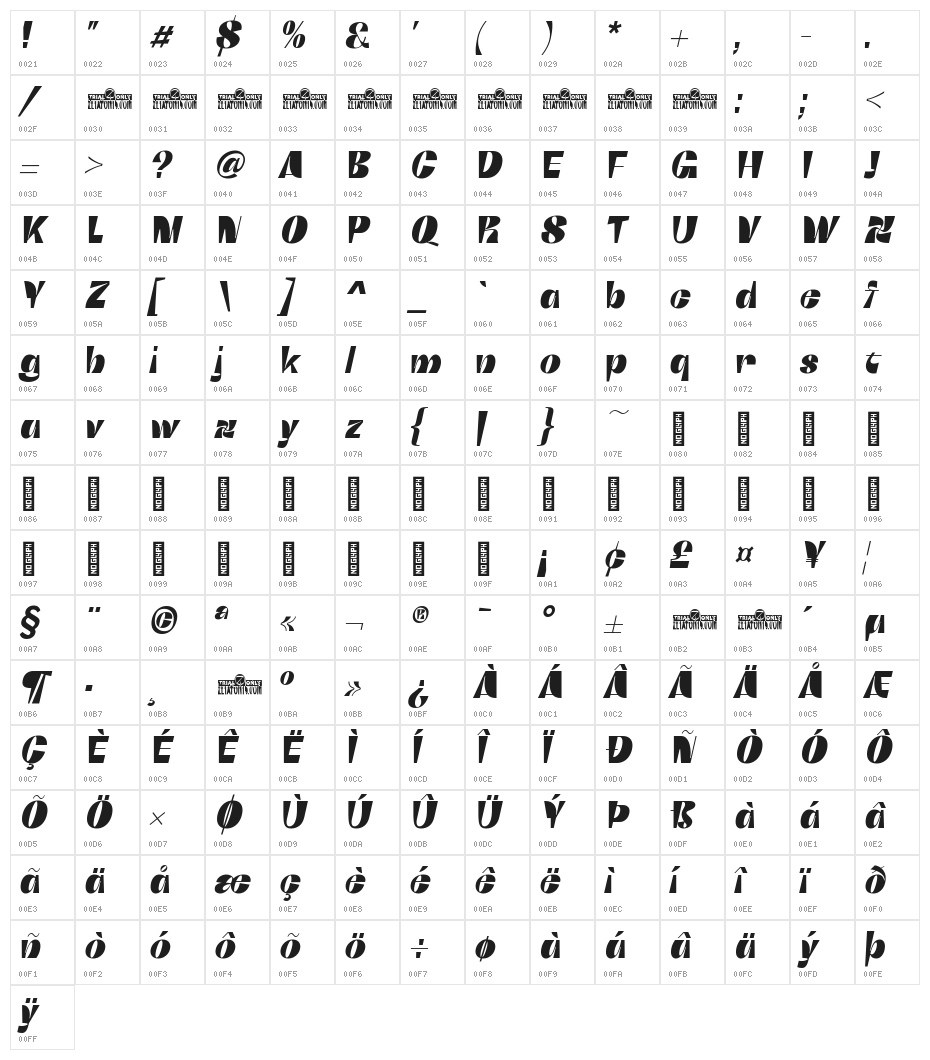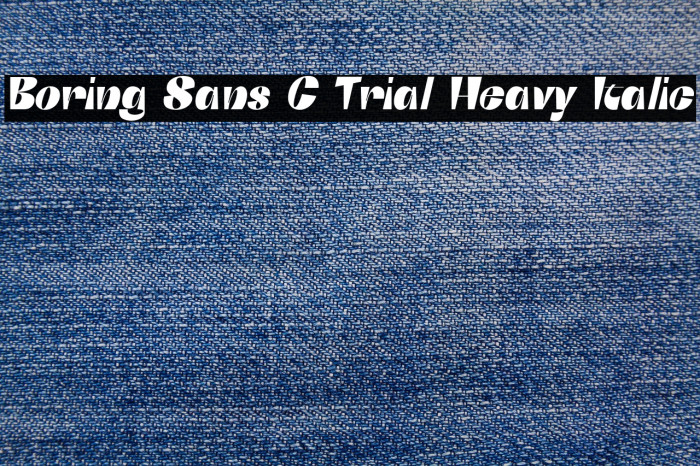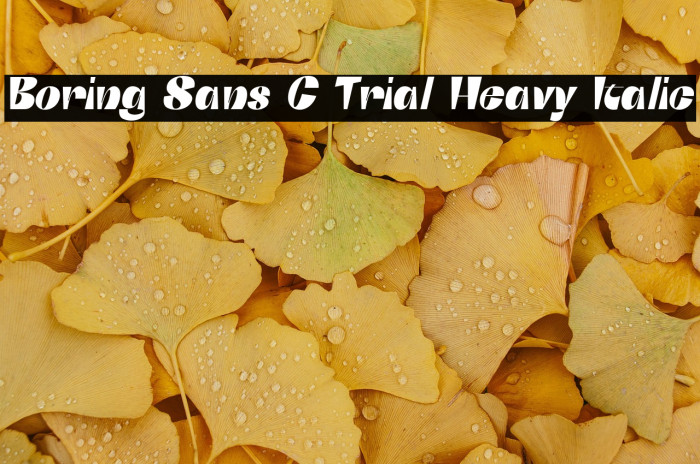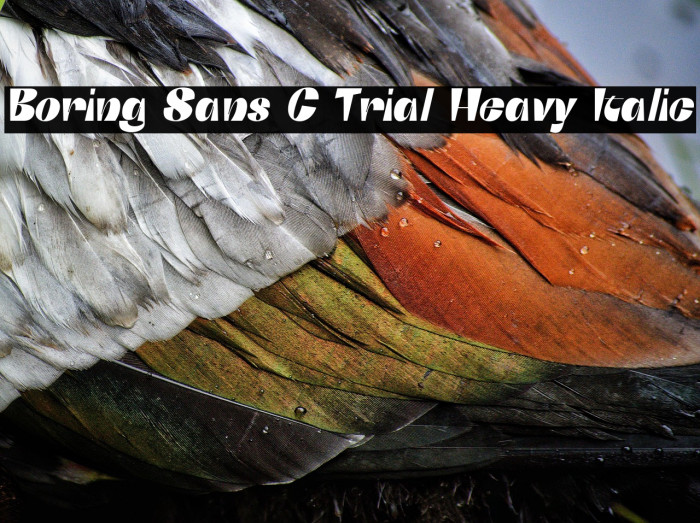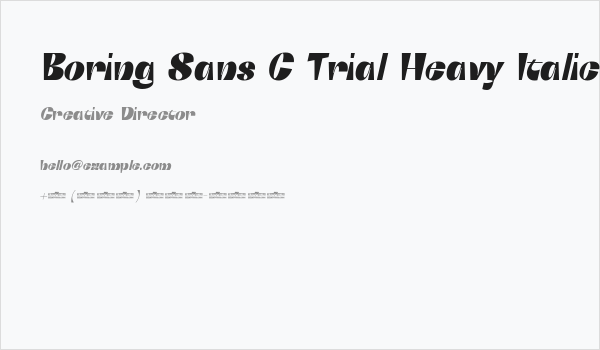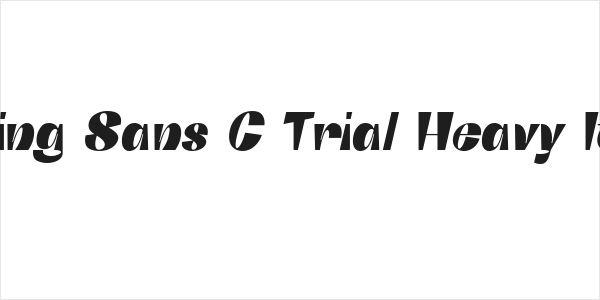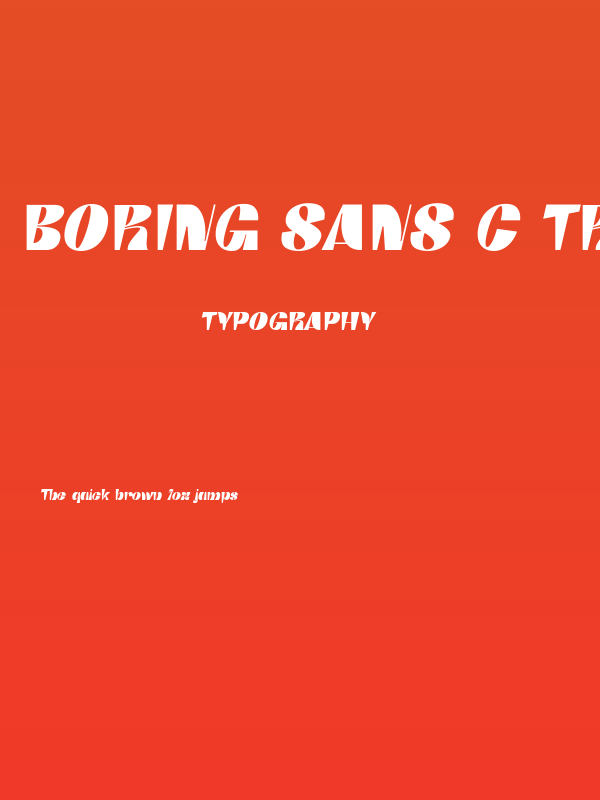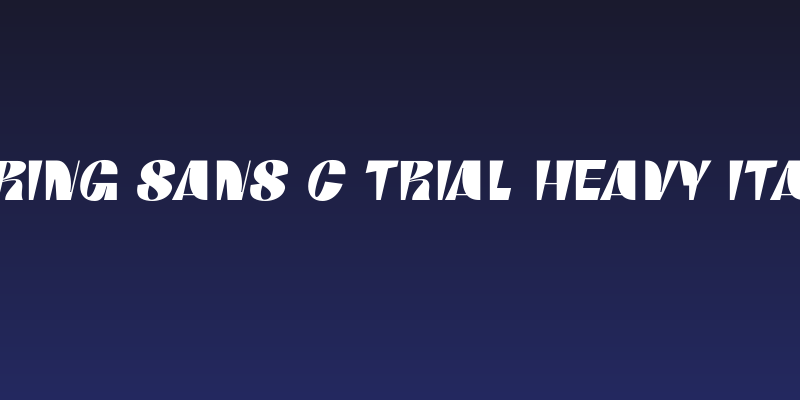
Boring Sans C Trial Heavy Italic Font
Boring Sans C Trial Heavy Italic Description
This font features a bold and dynamic style with a heavy italic slant, creating a sense of movement and energy. The characters are wide and robust, with a distinctive angular design that adds a modern flair. The uppercase letters are particularly striking, with sharp edges and a strong presence. The lowercase letters maintain the same boldness, ensuring consistency across the typeface. The numerals and special characters are equally bold, making them stand out effectively. This font is ideal for making a statement and capturing attention.
| Proposed Projects | Ideal for branding, advertising, poster design, and any project requiring a strong visual impact. |